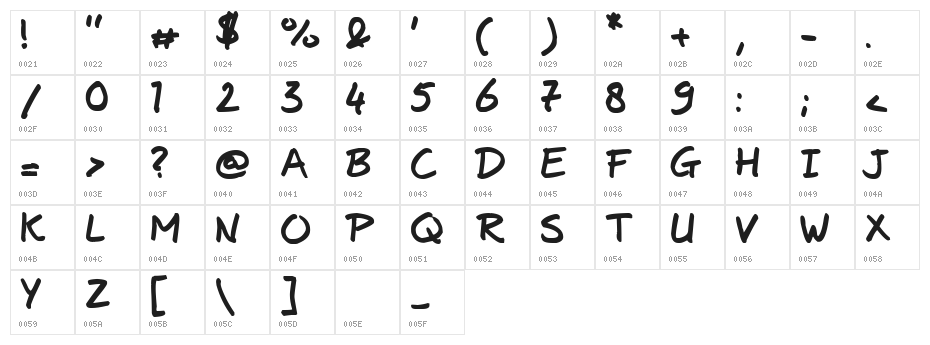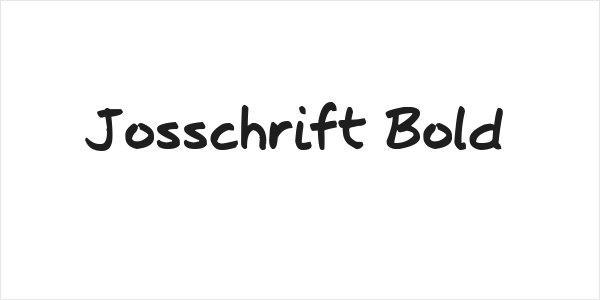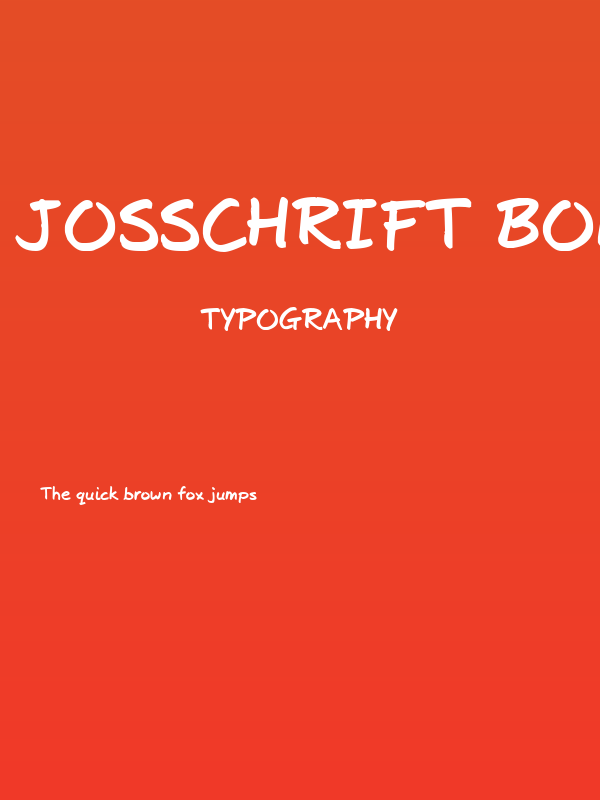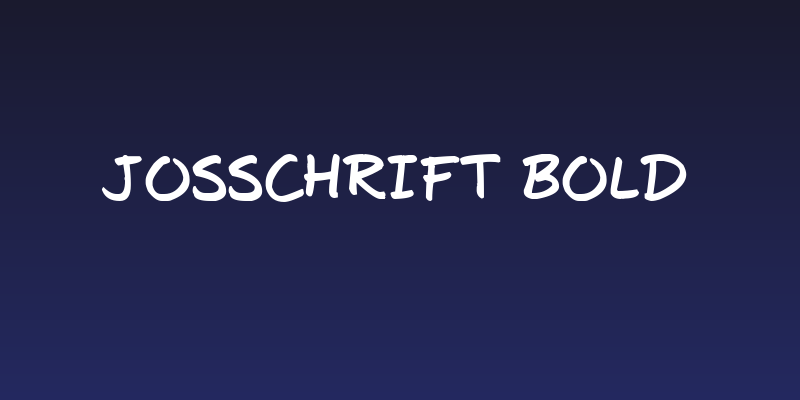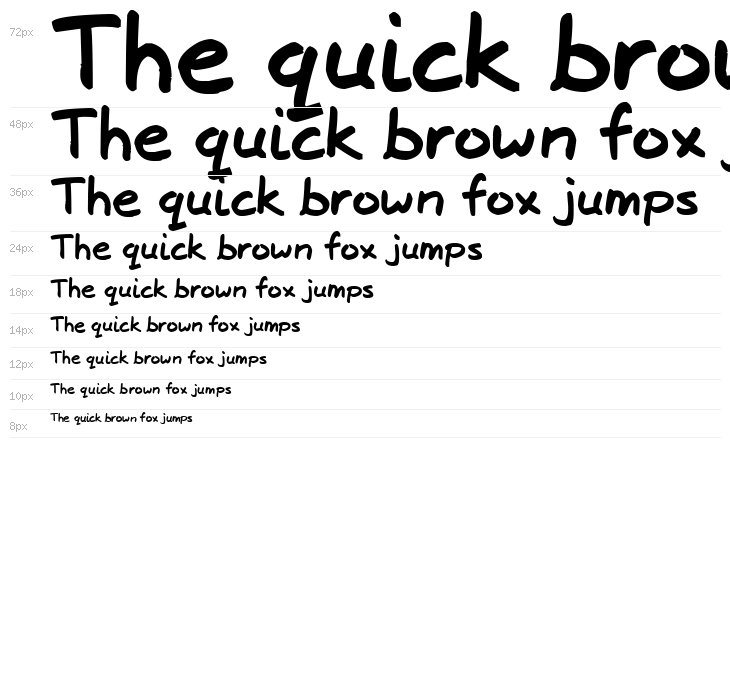
Josschrift Bold Font
Josschrift Bold Description
This font features a bold, handwritten style that exudes a casual and approachable feel. The letters are slightly slanted, giving it a dynamic and lively appearance. The strokes are thick and consistent, providing a strong visual impact. The characters are well-spaced, ensuring readability while maintaining a playful aesthetic. The numerals and special characters match the overall style, making it versatile for various uses. Its informal nature makes it ideal for creative projects that require a personal touch.
| Use Case | Logos, Headlines, Informal Text |
| Proposed Projects | Ideal for greeting cards, personal branding, social media graphics, and informal invitations. |